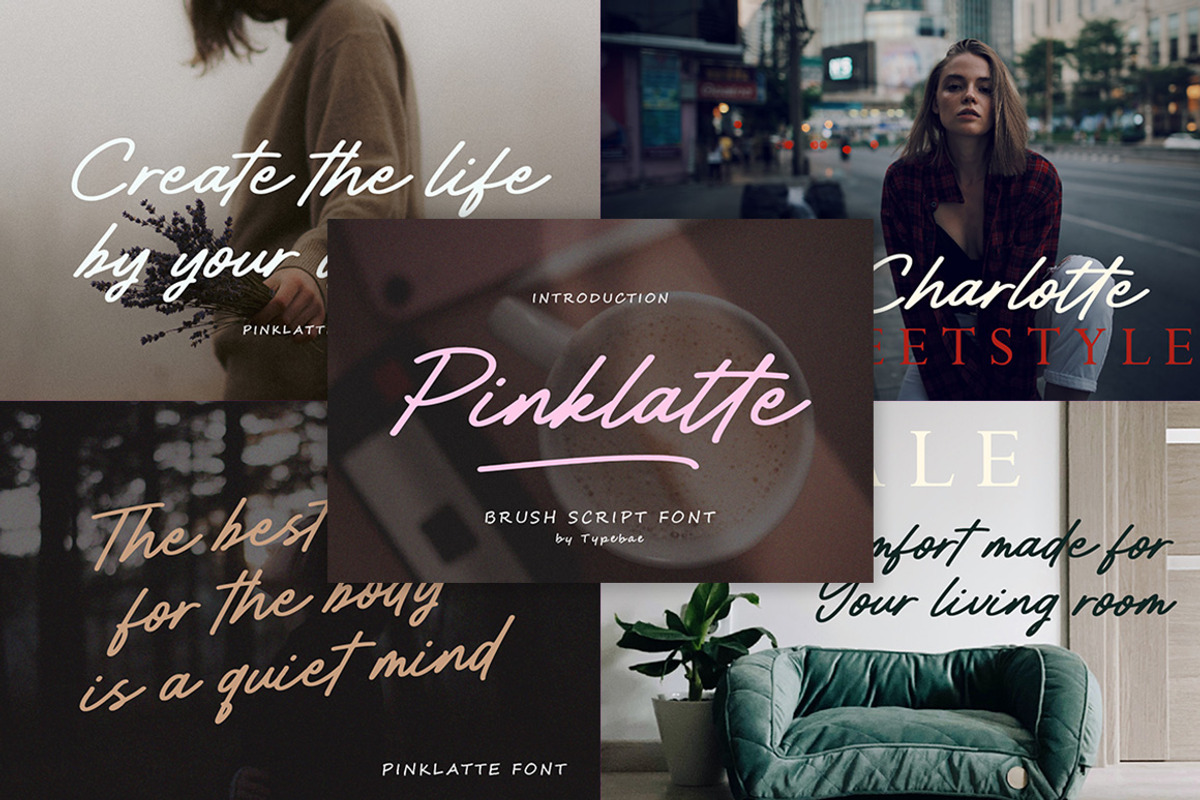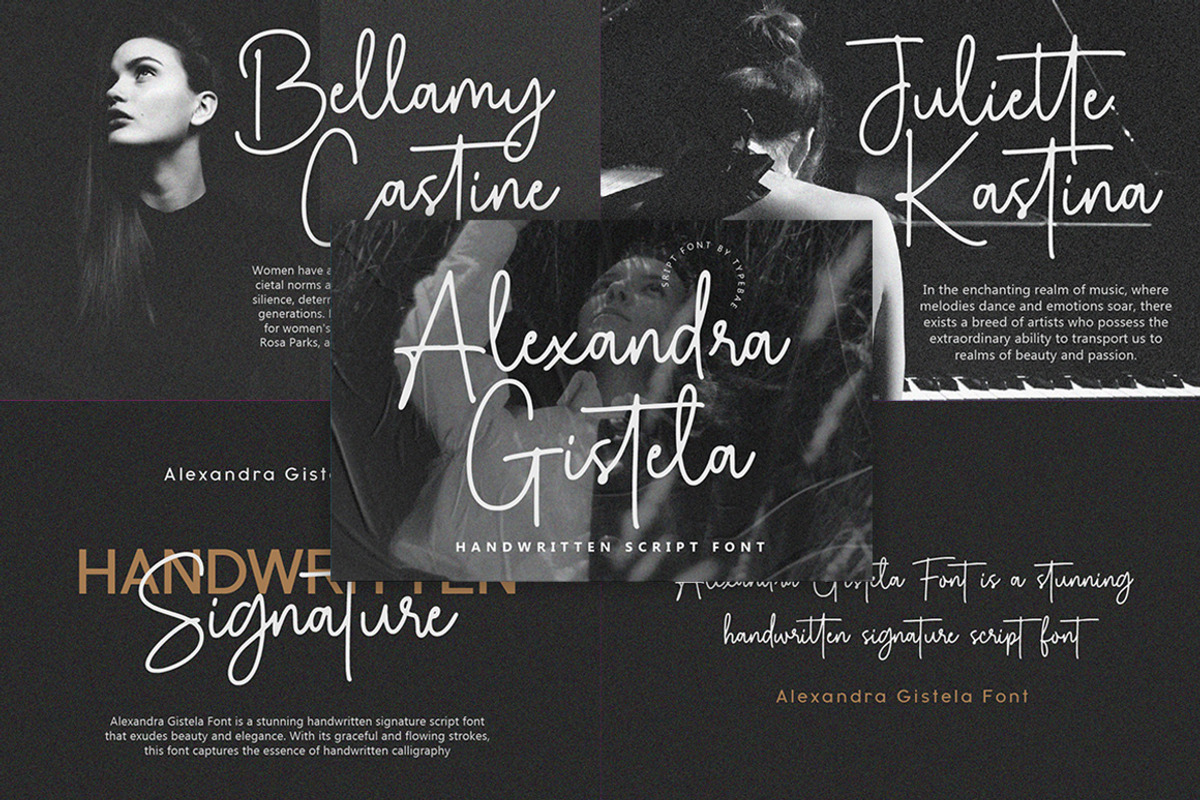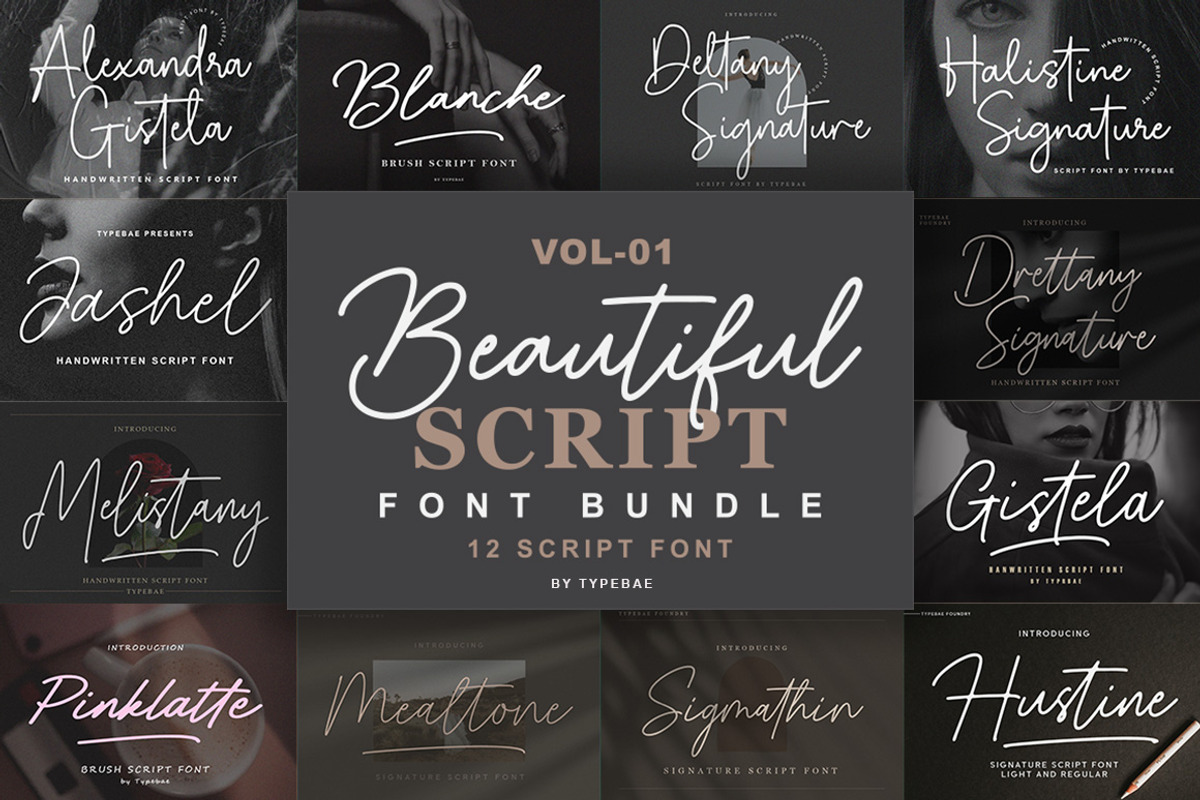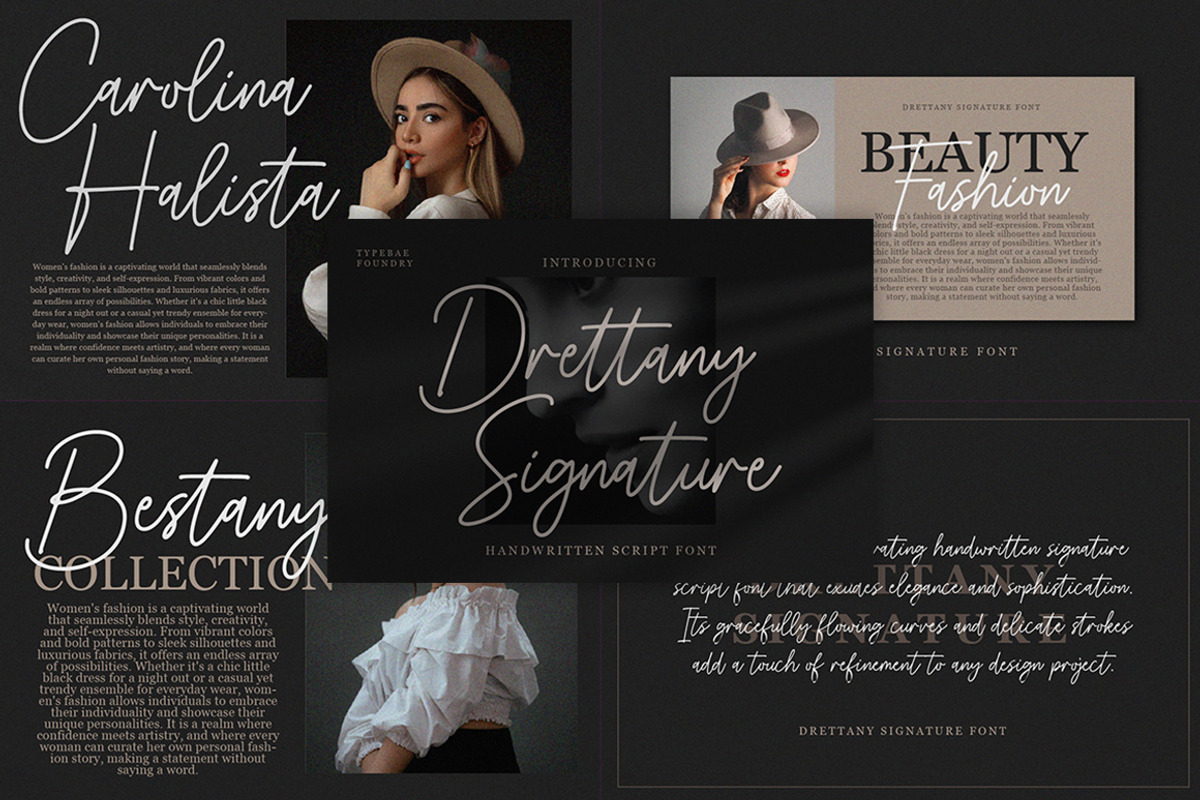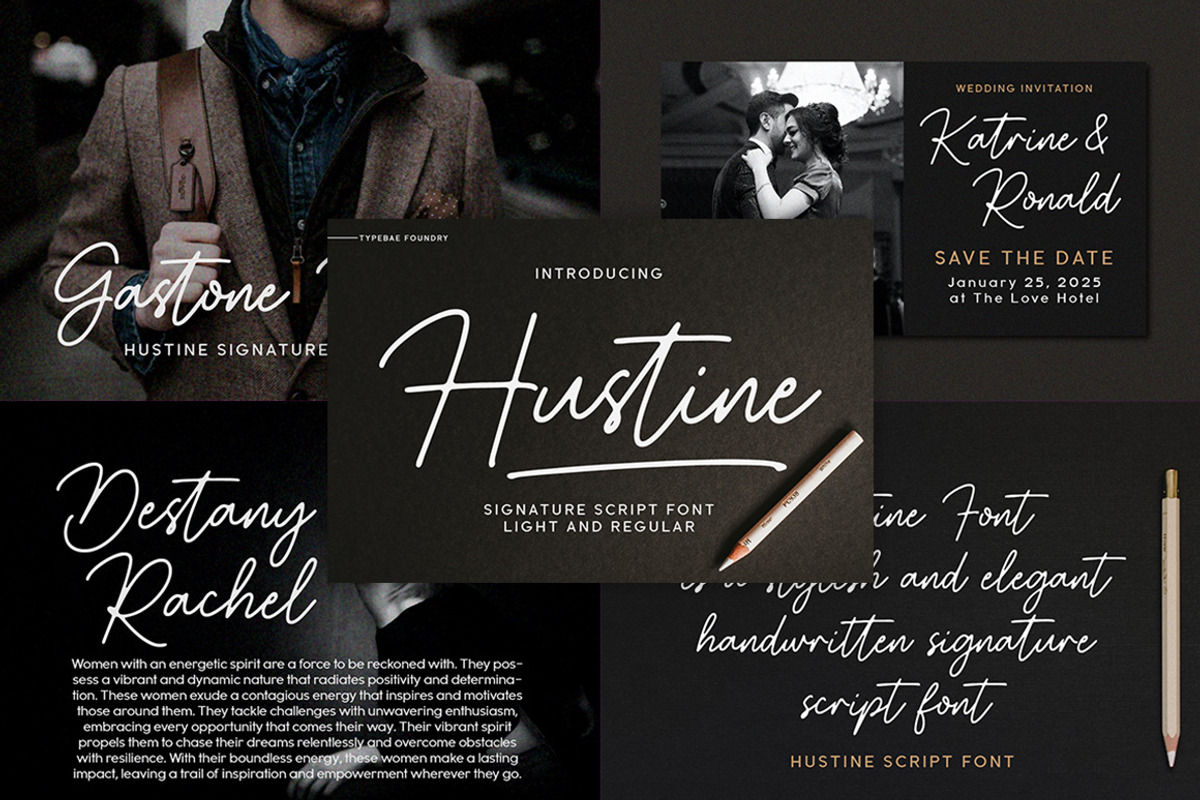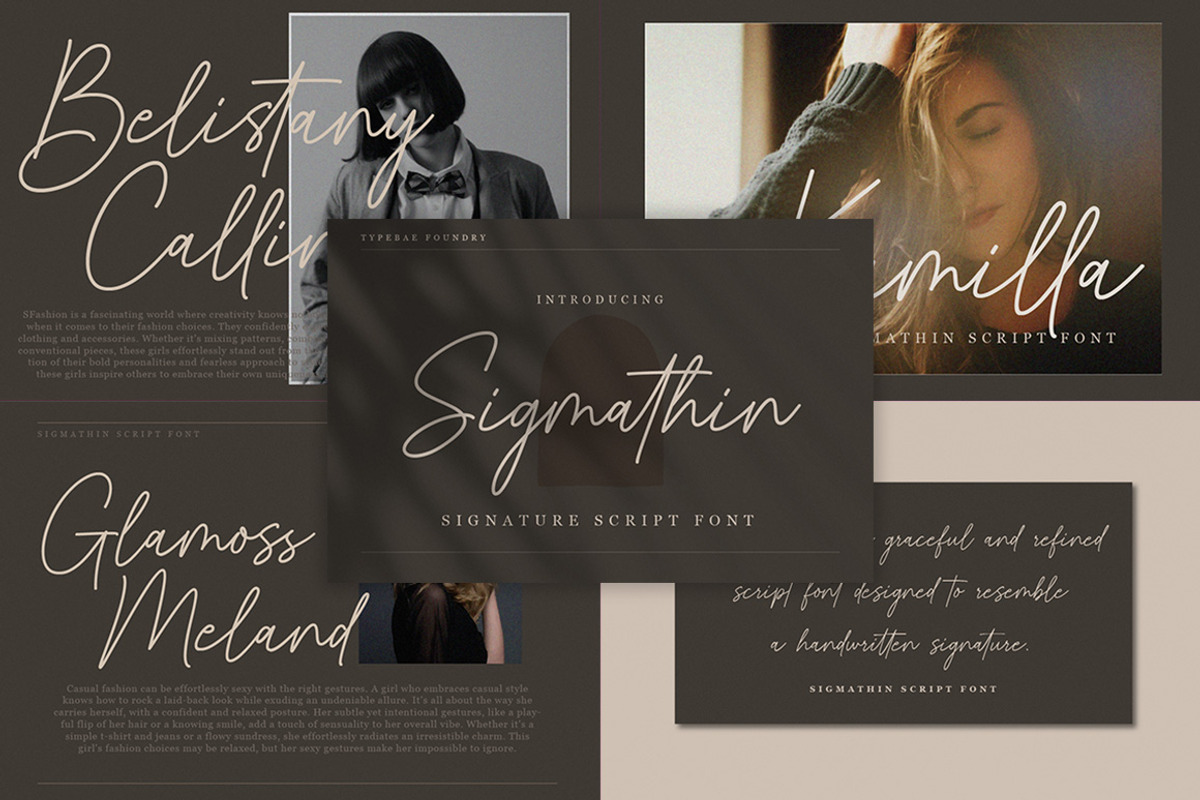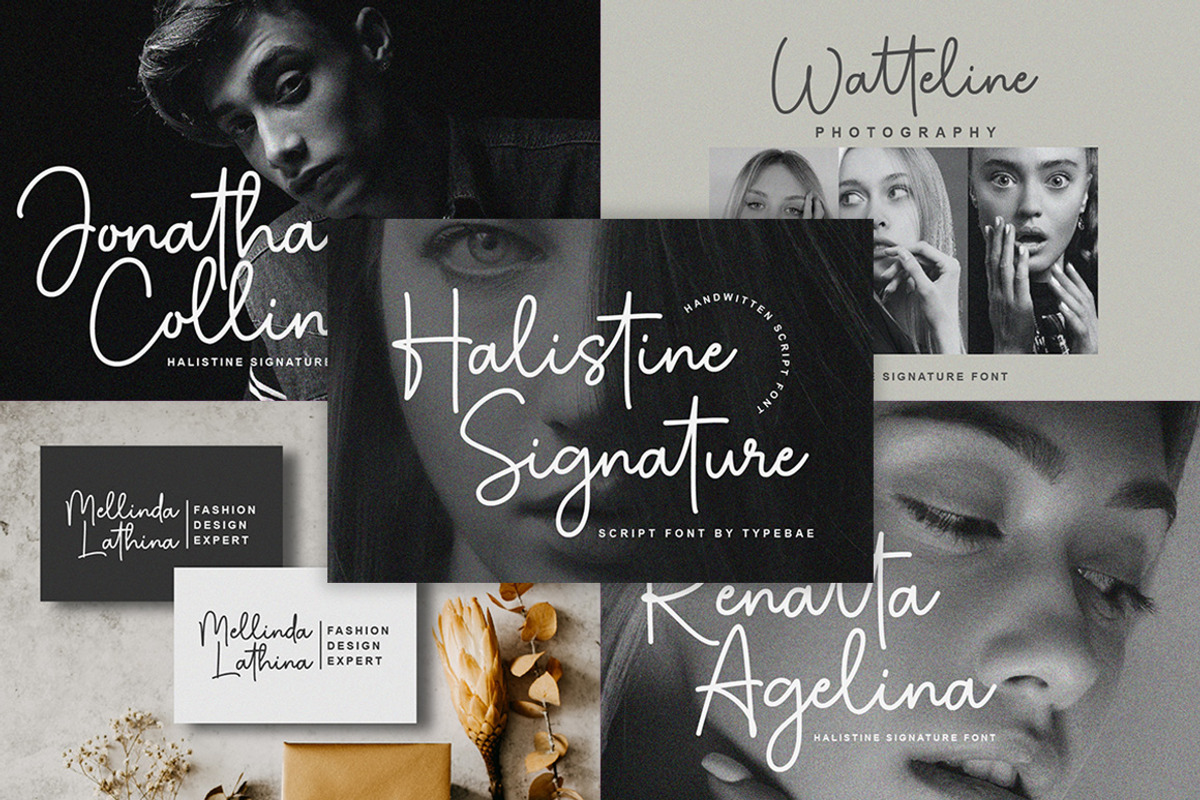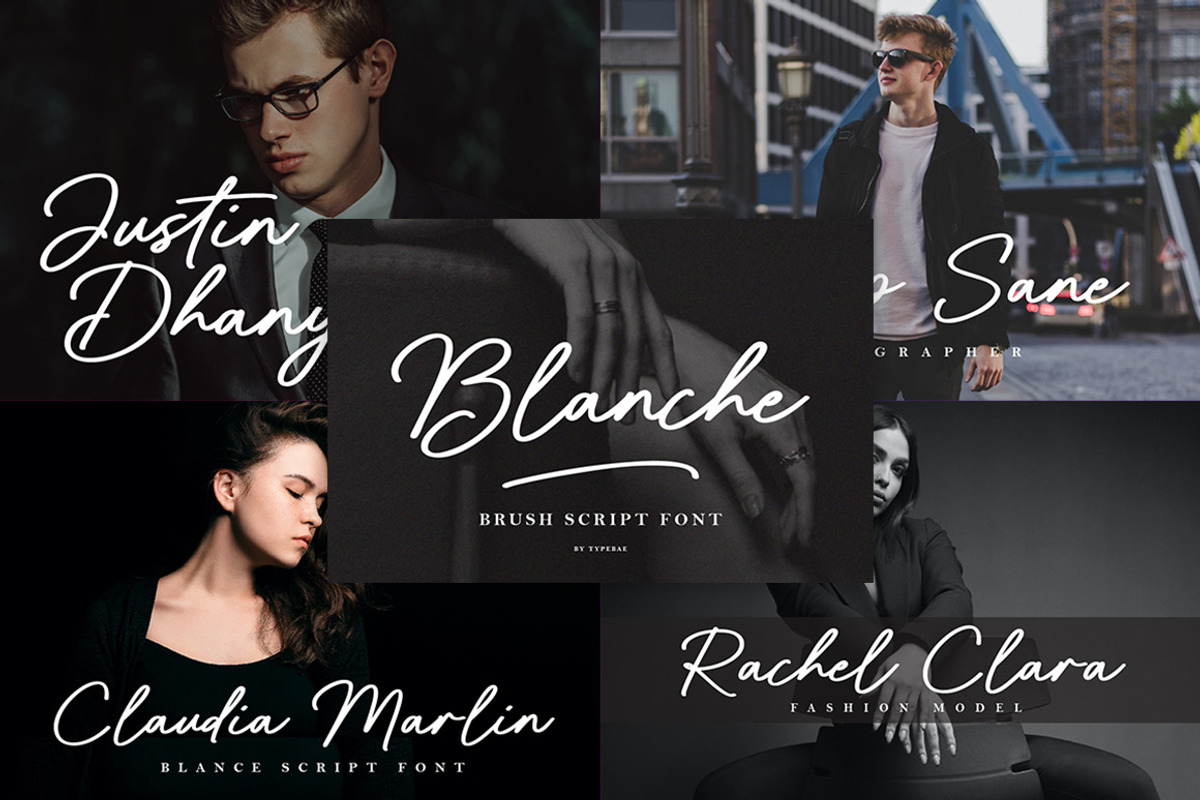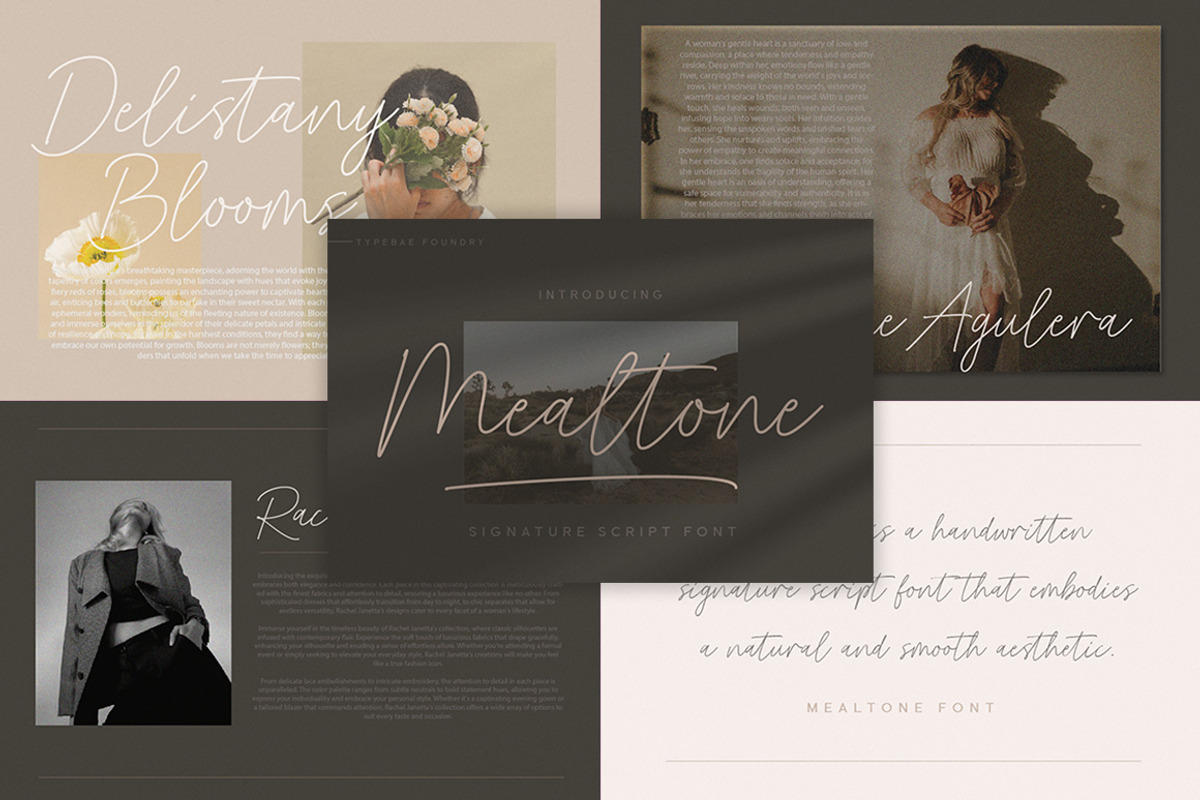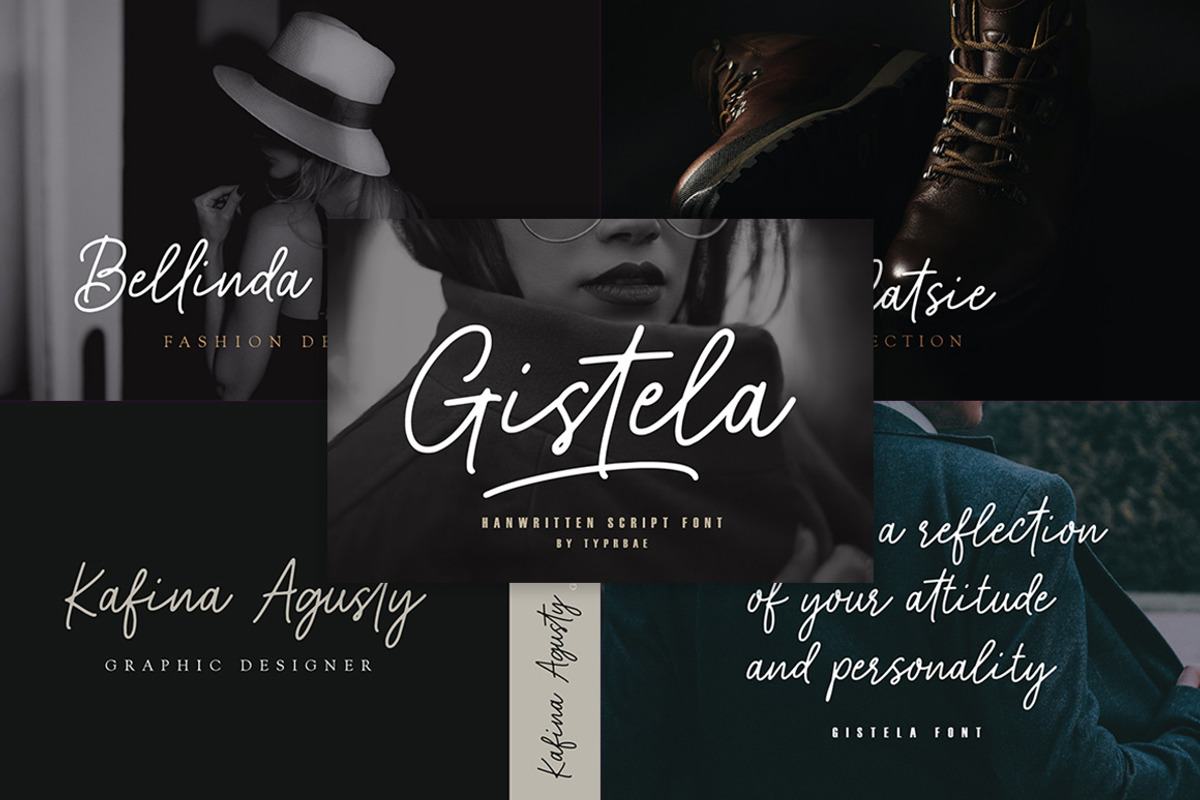
Beautiful Script Font Bundle Vol 1
Beautiful Script Font Bundle Vol 1 includes 12 fonts.
This Fonts is perfect for logos, watermarks on photography, signatures, branding, advertisement, quotes, invitations, stationery, wedding design, album covers, business cards, clothing, magazines, posters, and more!